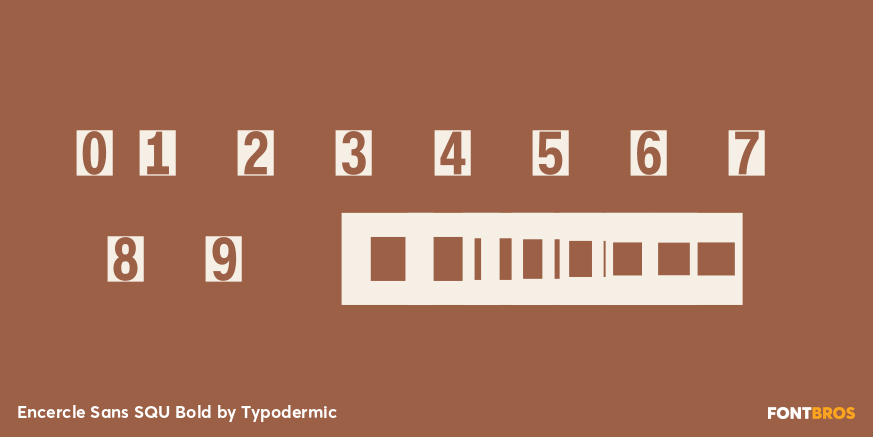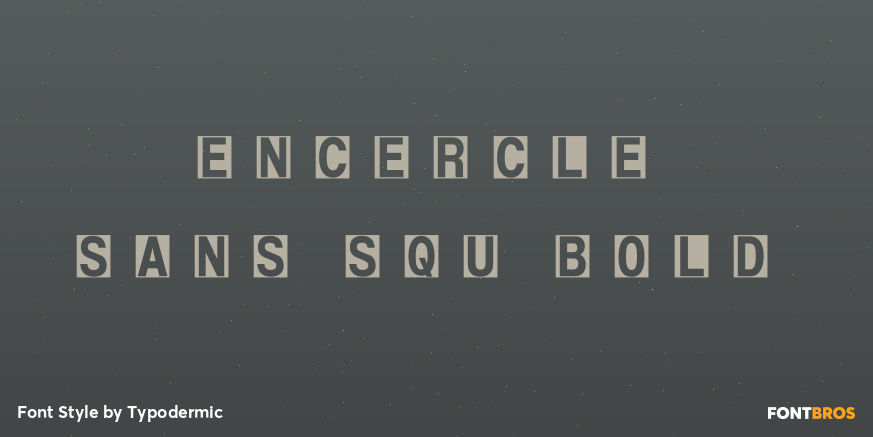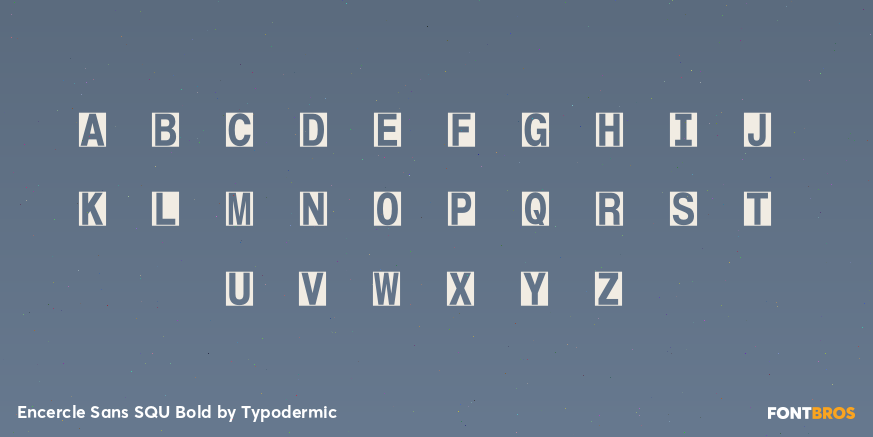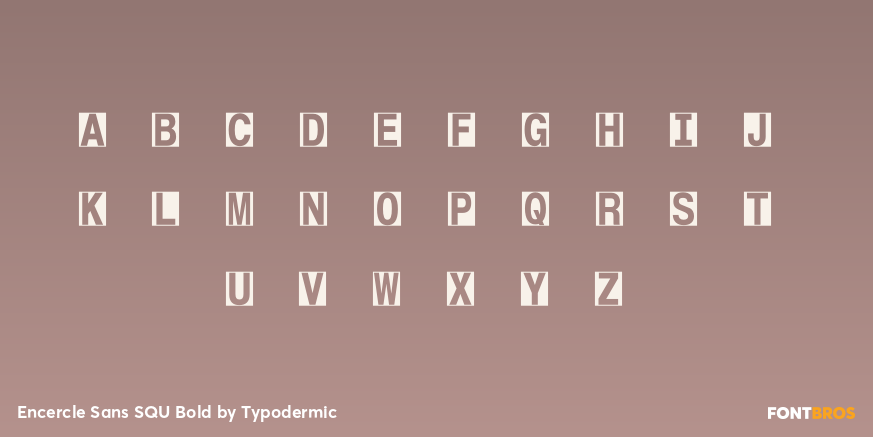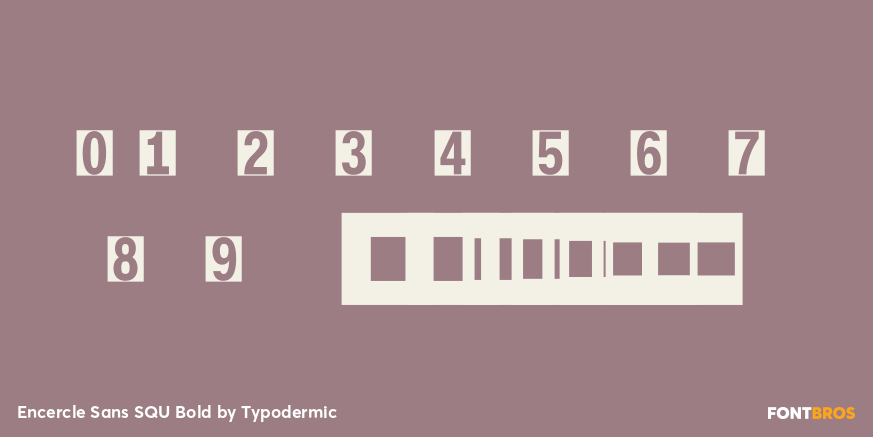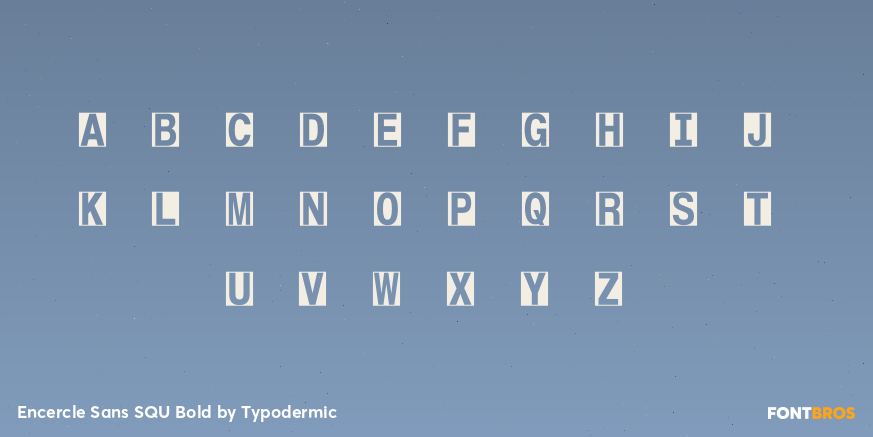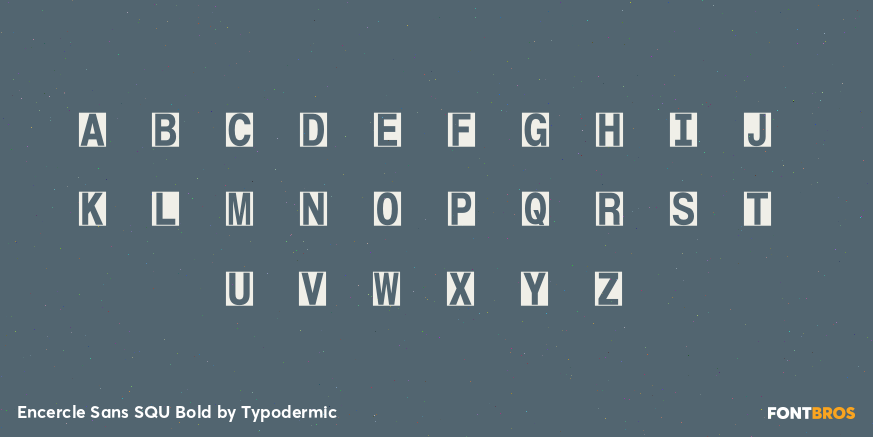
Encercle Sans SQU Bold
Buy NowEncercle Sans SQU holds each label in a fixed square outline, giving mixed identifiers a consistent geometric footprint across a grid. SQU Bold turns the square into a solid inverse tile with light lettering. The Bold member marks a filled state rather than serving as an ordinary heavier cut.